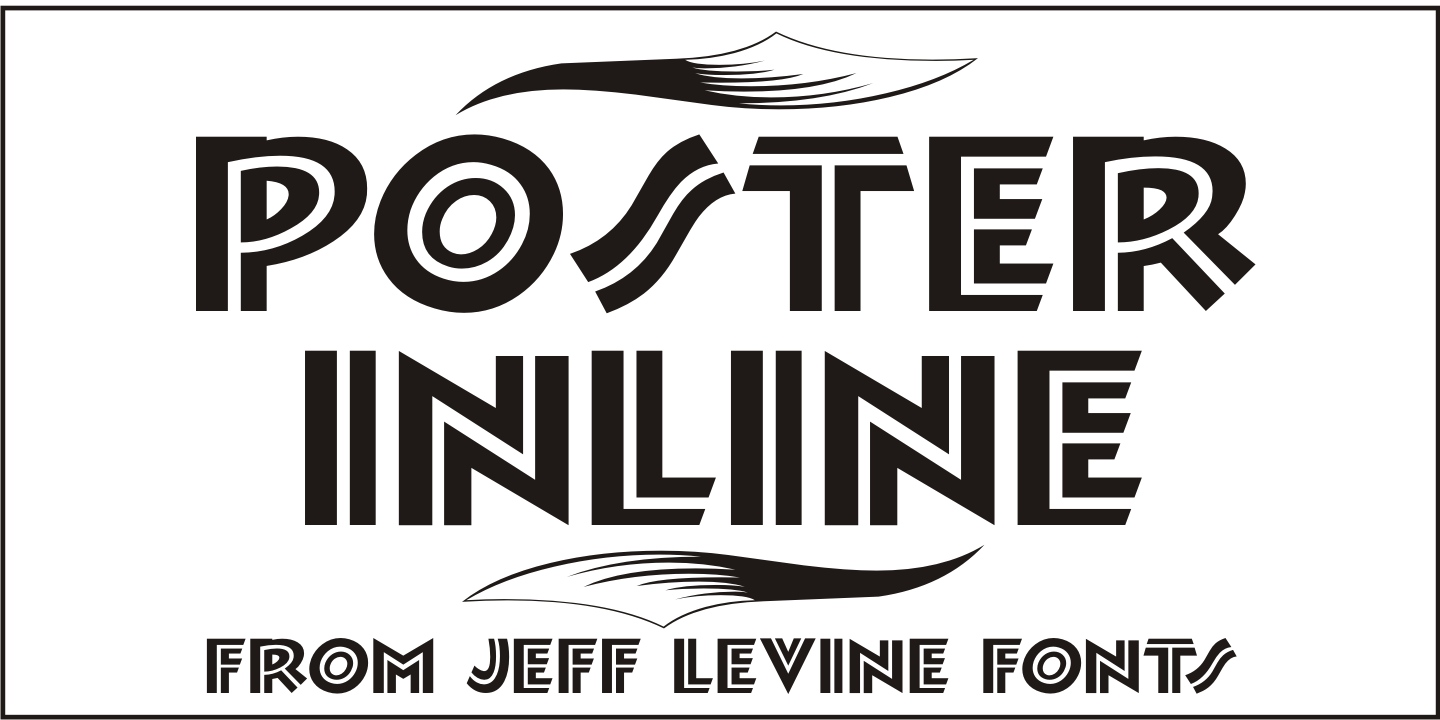
Poster Inline JNL Font is perfect for vintage movie theater displays, retro concert promotions, classic circus advertisements, nostalgic fairground signage, old-fashioned carnival posters, traditional vaudeville programs, vintage advertising reproductions, antique poster collections, historical entertainment venues, retro promotional campaigns, classic showbiz marketing, and authentic period poster designs.
This font is exciting because it captures the bold theatrical flair and attention-grabbing power of classic poster lettering from the golden age of entertainment advertising, featuring dramatically outlined letterforms that command attention with the same irresistible showmanship and carnival barker energy found on vintage movie theater marquees and traveling circus billboards that promised audiences the greatest shows on earth. The boldly dimensional character design embodies both the technical craftsmanship of traditional sign painting and the promotional excitement of old-fashioned entertainment marketing, creating typography that practically shouts its message while maintaining the authentic charm of hand-painted poster artistry. Each letter demonstrates the kind of theatrical presence and promotional power that transforms ordinary text into show-stopping announcements worthy of the most spectacular entertainment events.
The Poster Inline JNL Font family includes regular weight with complete character sets featuring showbiz-style numerals, theatrical punctuation marks, and authentic inline detailing that reflects traditional poster lettering techniques. Advanced versions may offer additional weight variations with enhanced dimensional effects, alternate characters that capture the natural variations of hand-painted signage, and decorative elements that celebrate the golden age of entertainment poster design and carnival advertising artistry.
Whether you're developing retro entertainment branding, creating vintage-inspired promotional materials, or designing nostalgic poster reproductions, Poster Inline JNL Font Free Download provides the theatrical impact and authentic vintage appeal your project needs to capture the excitement and showmanship of classic entertainment advertising from the era when every poster was a work of art designed to stop crowds in their tracks. This typeface transforms ordinary text into show-stopping announcements that carry the promotional power and theatrical magic of vintage entertainment marketing. The font's showbiz character makes it essential for venues and events that celebrate entertainment history and vintage promotional artistry. Vintage poster enthusiasts and retro entertainment marketers will appreciate how this font brings authentic poster tradition to their work with its genuinely theatrical and promotionally powerful character that honors the golden age of entertainment advertising.